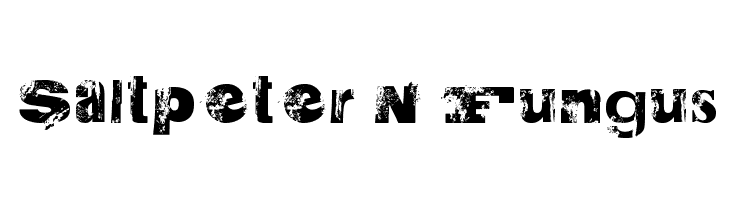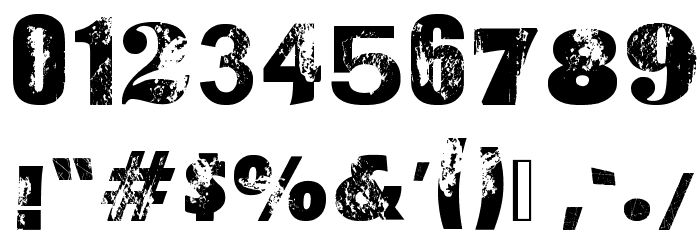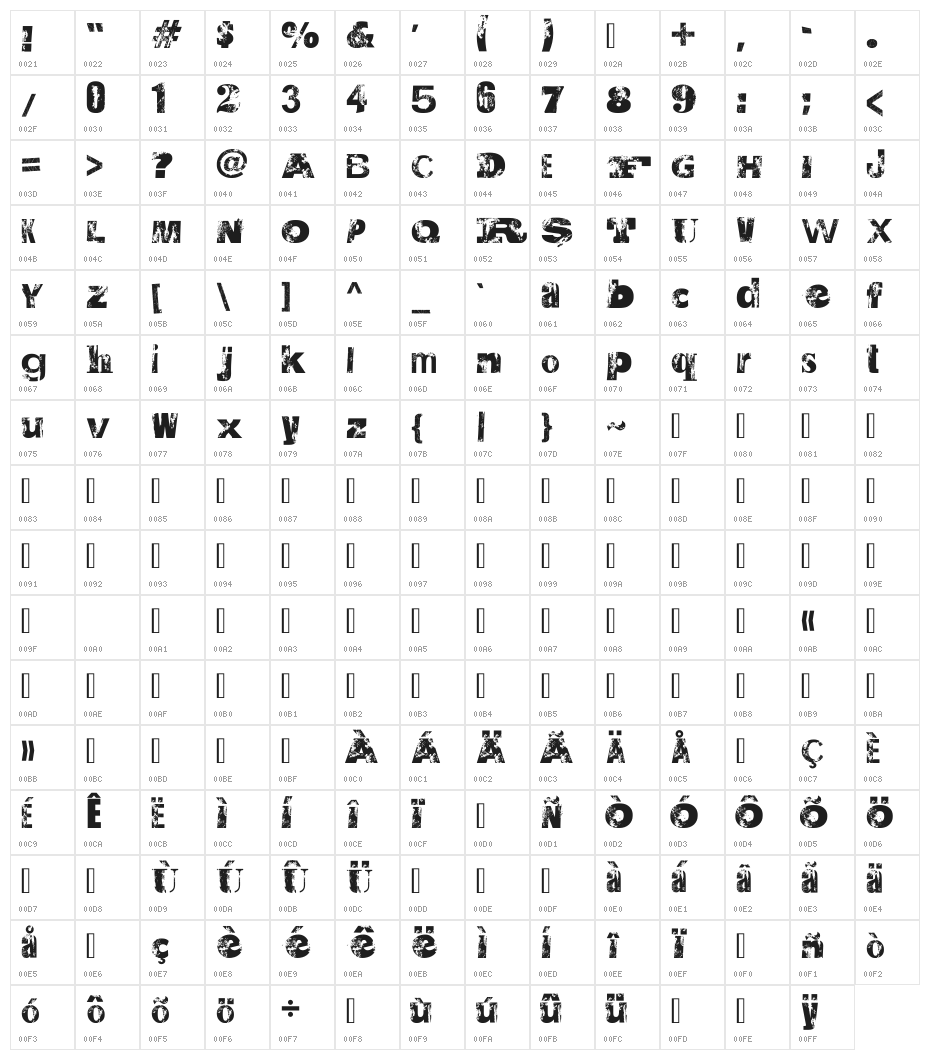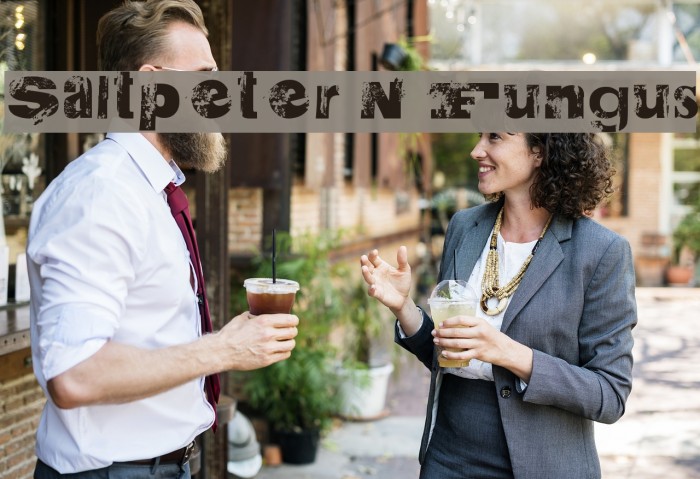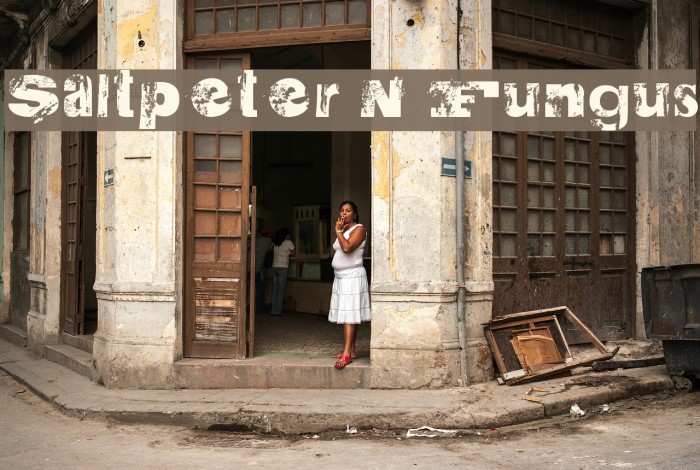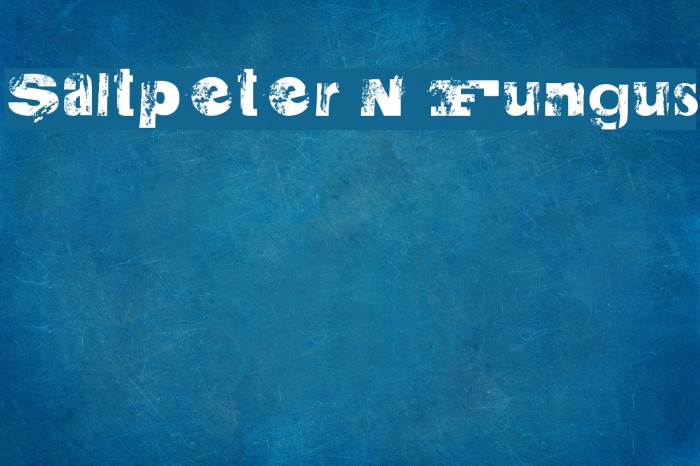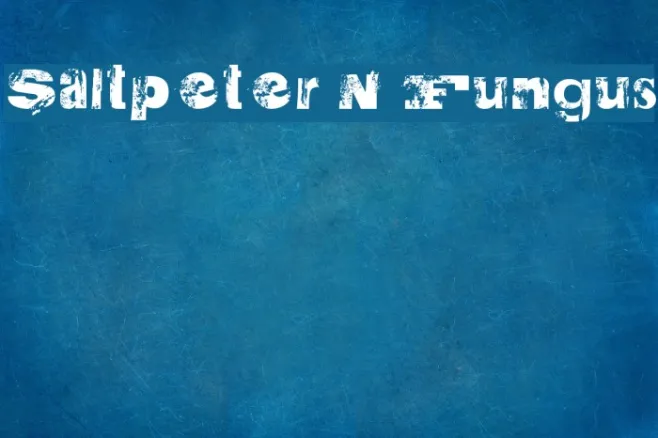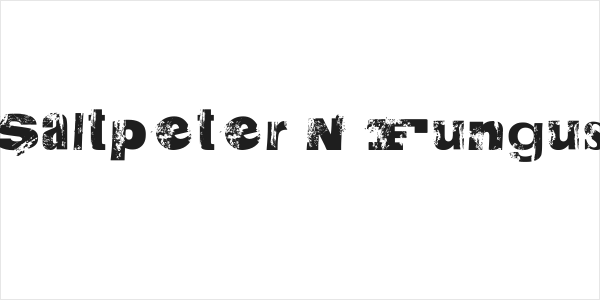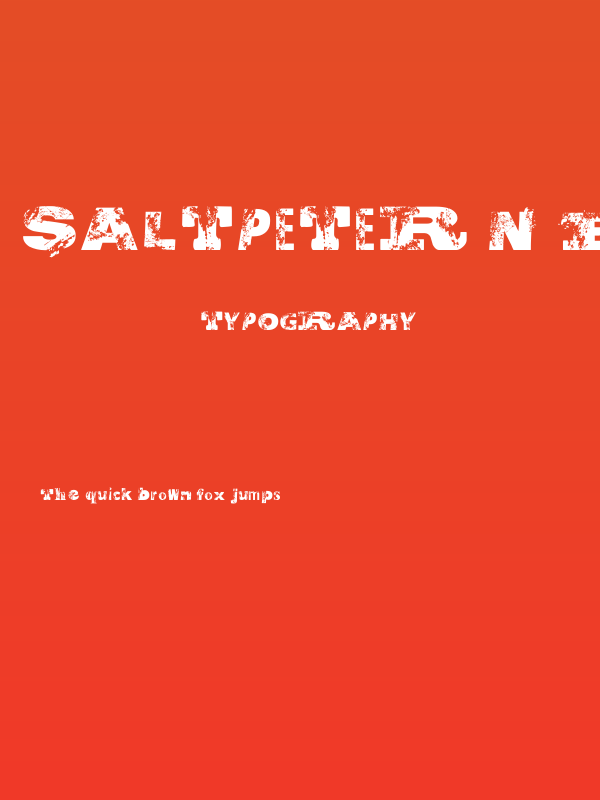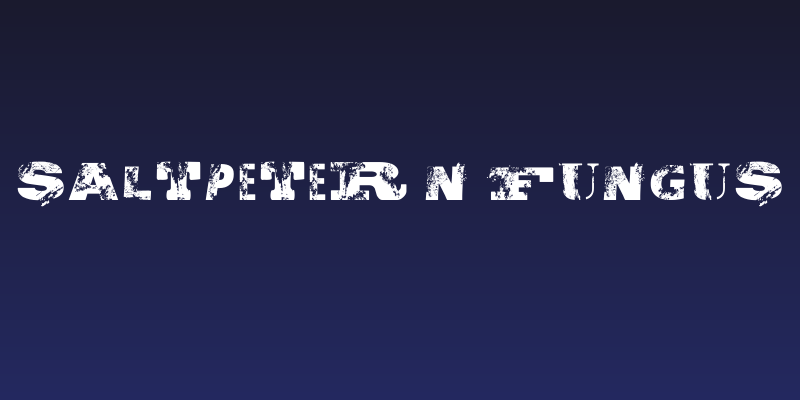
Saltpeter N Fungus Font
This font features a distressed, grunge aesthetic with a bold and rugged appearance. The characters are heavily textured, giving the impression of erosion or decay, which adds a unique, edgy feel. The uppercase and lowercase letters maintain a consistent style, with each character appearing as if it has been weathered over time. The numbers and special characters follow the same design, ensuring uniformity across all glyphs. This font is ideal for projects that require a raw, industrial look, such as music album covers, posters, or urban-themed designs.
A distressed, grunge-style font with a bold, textured appearance.
• Proposed Projects: Ideal for music album covers, posters, urban-themed designs, and any project needing a rugged, industrial look.
• Category: Decorative/Display
• Bold: Yes
• Italic: No
• Weight: Bold
• Width: Normal
• Character Spacing: Normal
• Contrast: Low
• Overall Style: Grunge, Industrial
• Use Case: Headlines, Logos, Posters